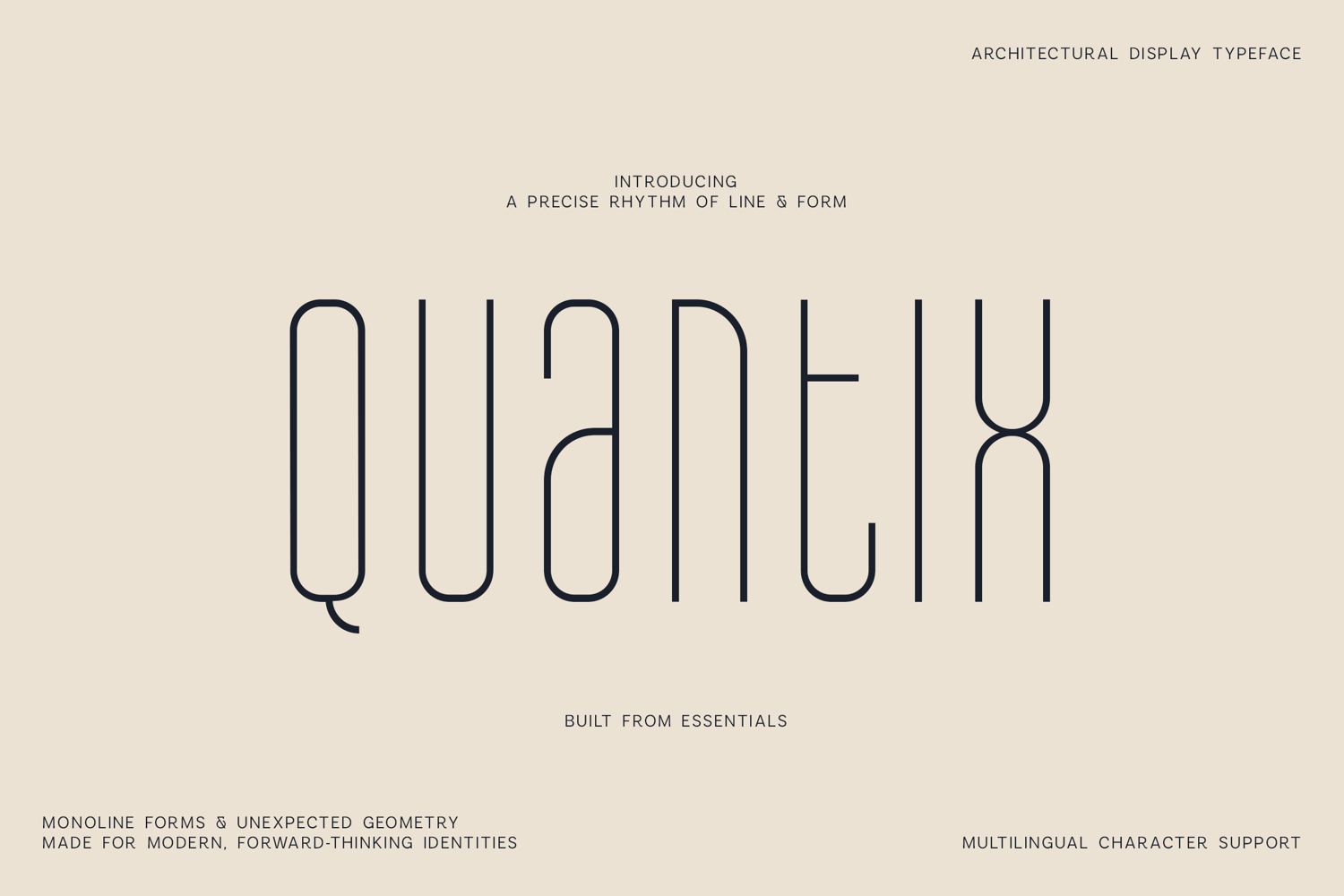
Quantix Architectural Display Font
Quantix is a tall architectural display typeface combining precise monoline forms with unusual geometric details.
Its narrow proportions and clean construction create a striking visual rhythm that feels contemporary, refined, and distinctive. Quantix is especially effective when used large, making it a strong choice for headlines, posters, branding, editorial layouts, magazines, packaging, logos, fashion graphics, and architectural presentations.
The unusual construction of individual characters adds personality without overwhelming the overall design, allowing Quantix to create bold and memorable typography across a wide range of creative projects.
• Uppercase & lowercase characters
• Punctuation & symbols
• Extended accented characters
• Tall condensed letterforms
• Distinctive geometric details
Quantix is made for designers looking for an elegant display typeface with an architectural and forward-thinking character.